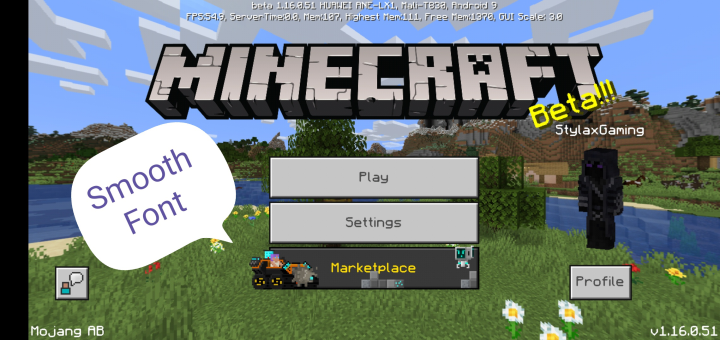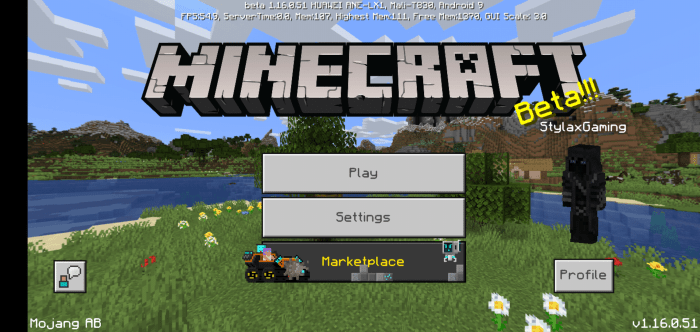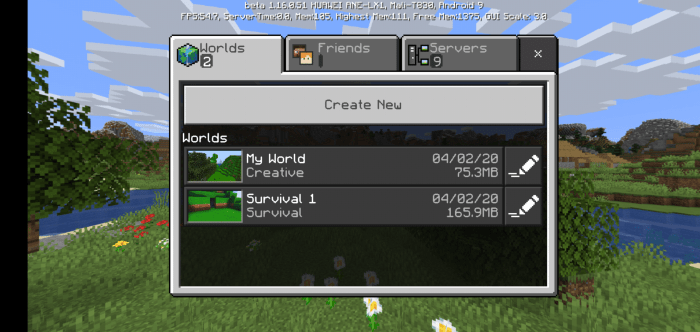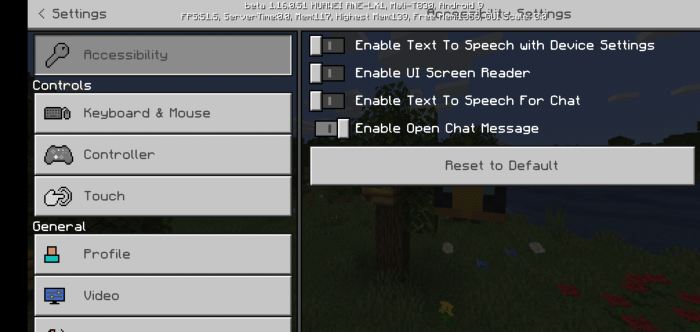
This is my first upload. All this does it change the font to something better on the eyes. Something a lot smoother and it works for any version of Minecraft. Please use this pack as you wish.
BETTER FONTS
This texture (Better Font) is just a simple little pack that makes the font a whole lot easier on the eyes instead of the default Minecraft Font.
I’ve added some screenshot for your viewing pleasure. Hope you enjoy.
Default Start Screen
Smooth Start Screen
Default Create New World Screen
Smooth Create New World Screen
Default Option Screen
Smooth Option Screen
I really do hope you enjoy this simple yet effective font change.